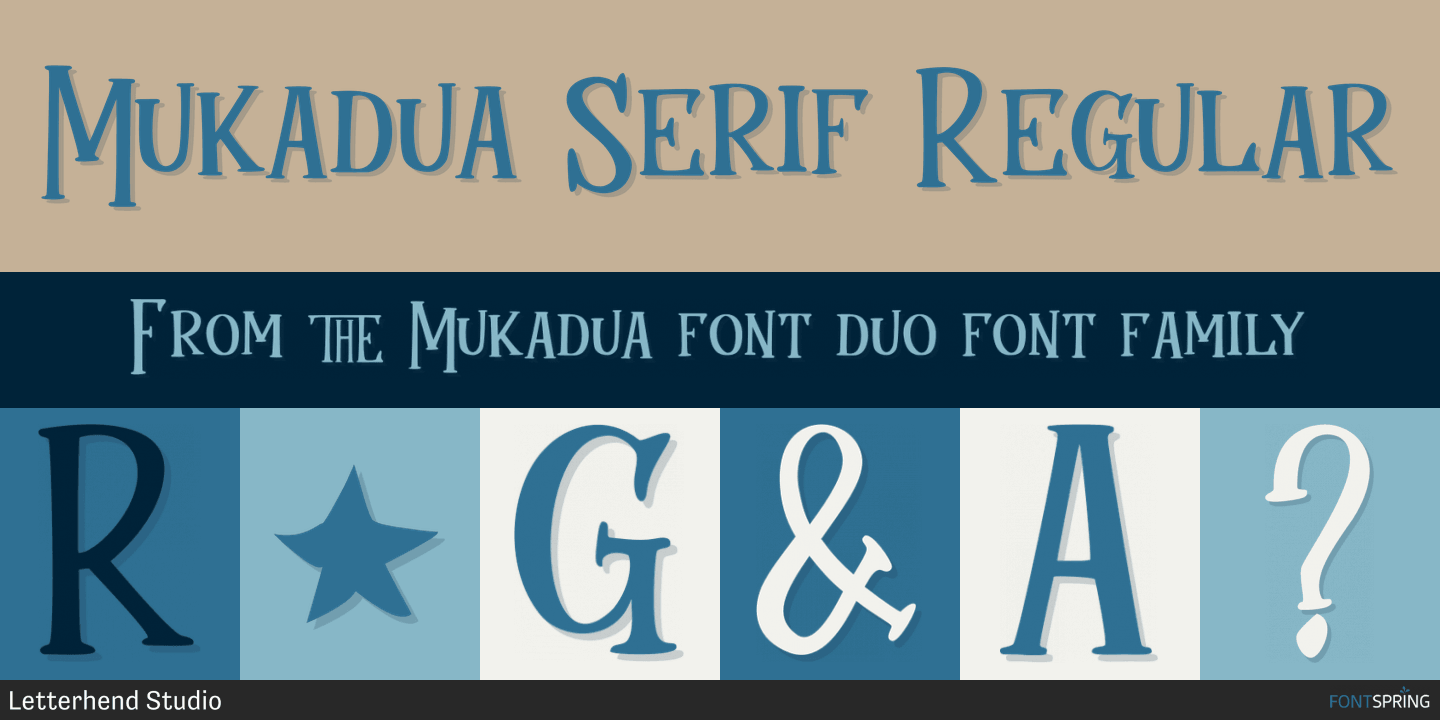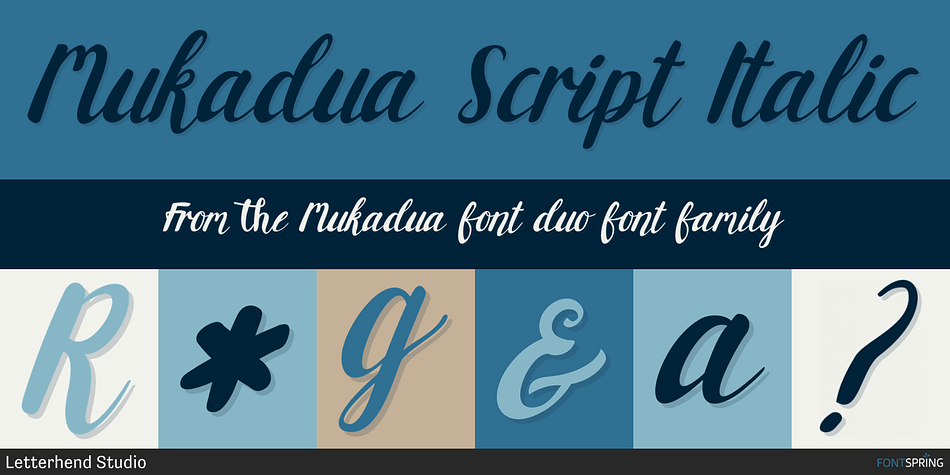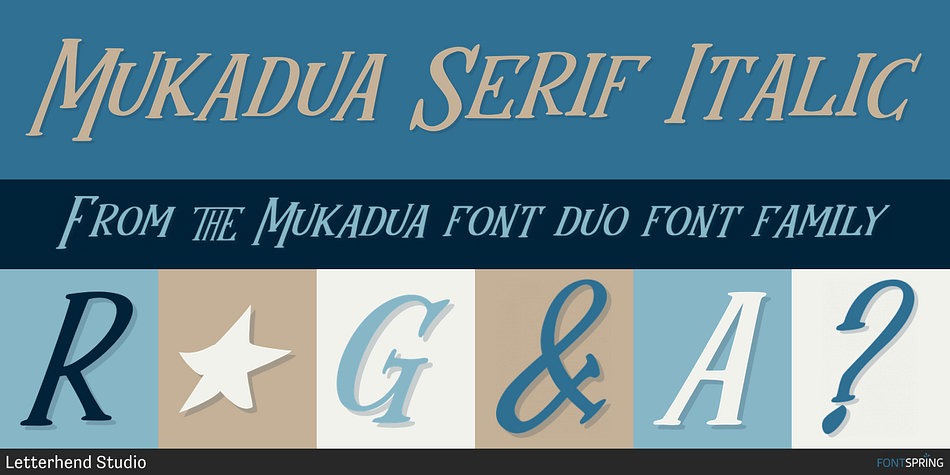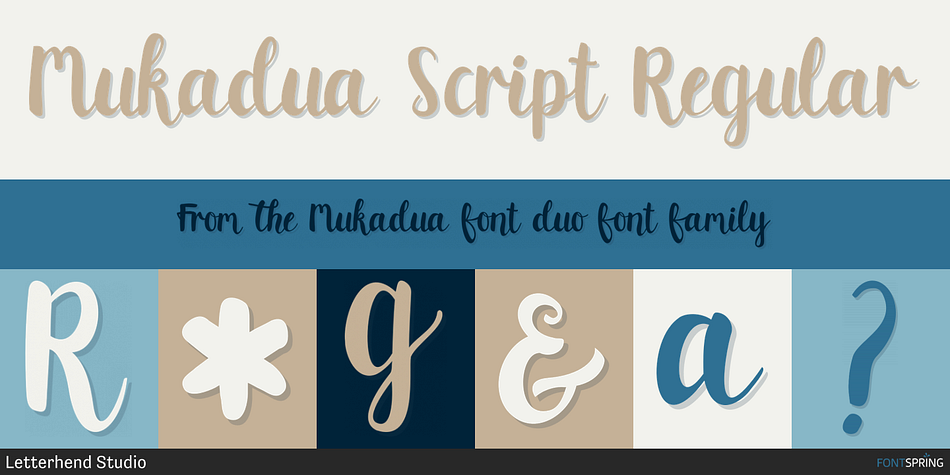
Designed by Hendry Juanda, Mukadua is a multiple classification font family. This typeface has four styles and was published by Letterhend Studio.
Introducing, mukadua typeface!
This typeface consist of two type of fonts, serif and script. Mukadua means two-face which is can be used in happy and fun concept, but still looks great in dark / horror / scary concept! The main font is a serif font type with unique bouncing baseline, includes upper & lowercase characters, punctuation, numerals, and multilingual support. It also has open type features like stylistic alternates and ligatures!